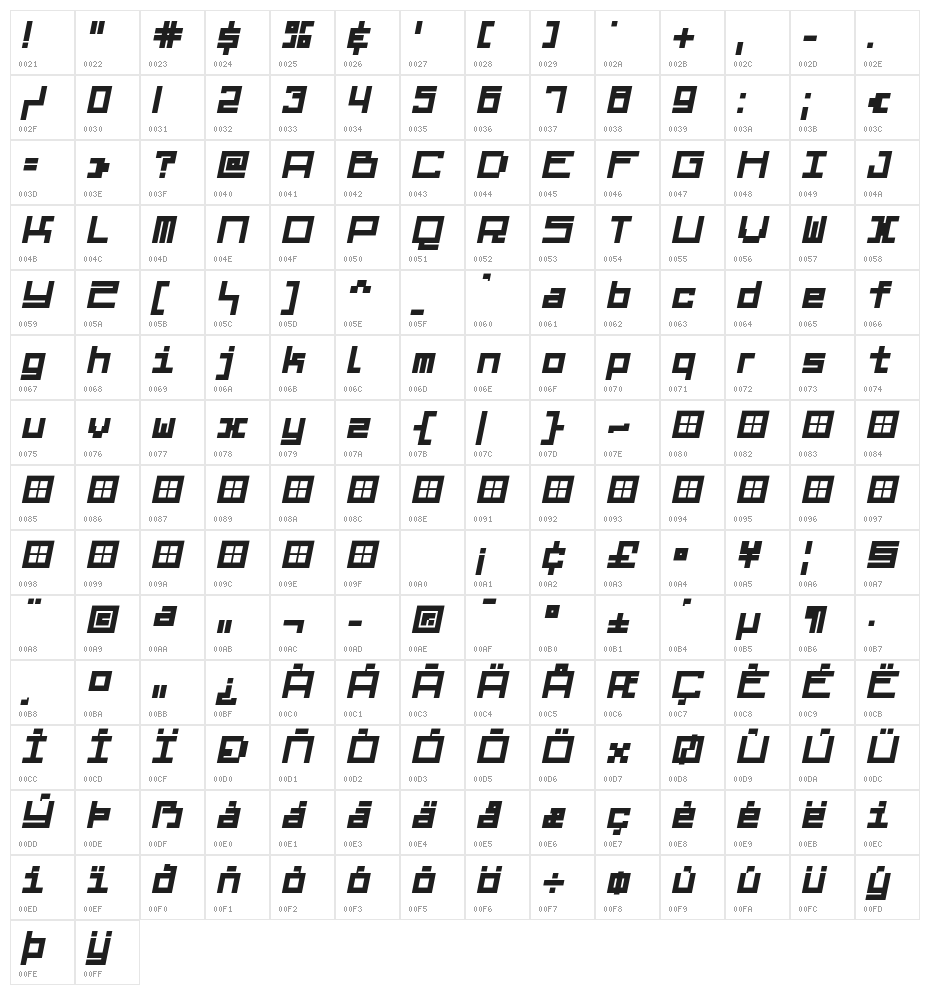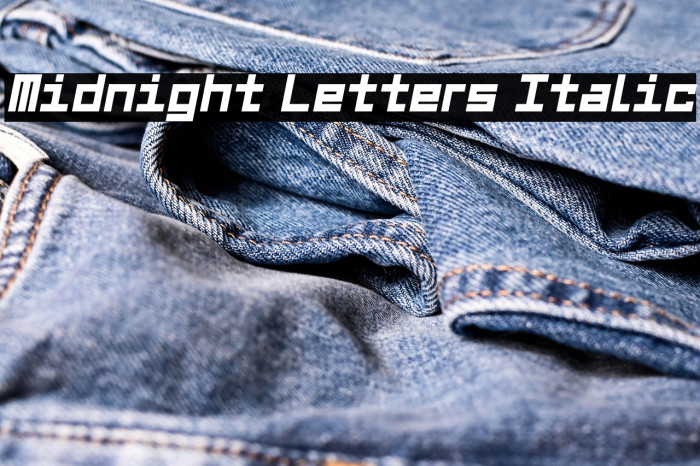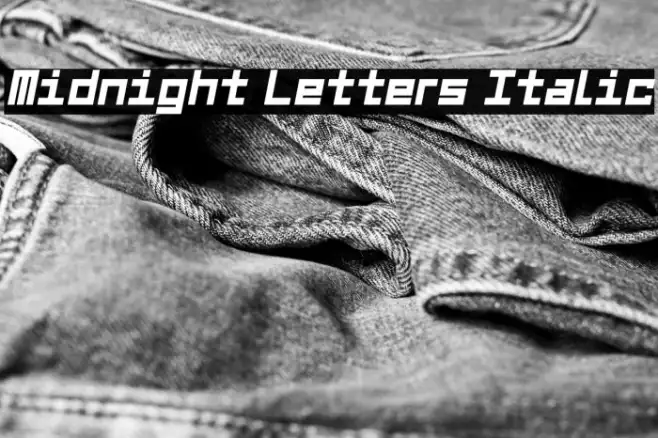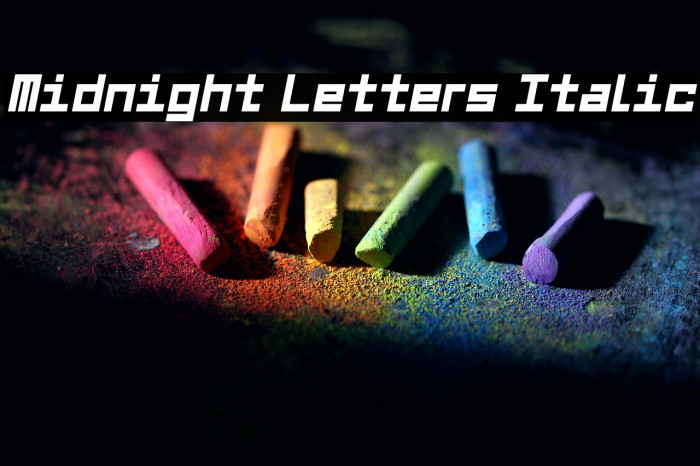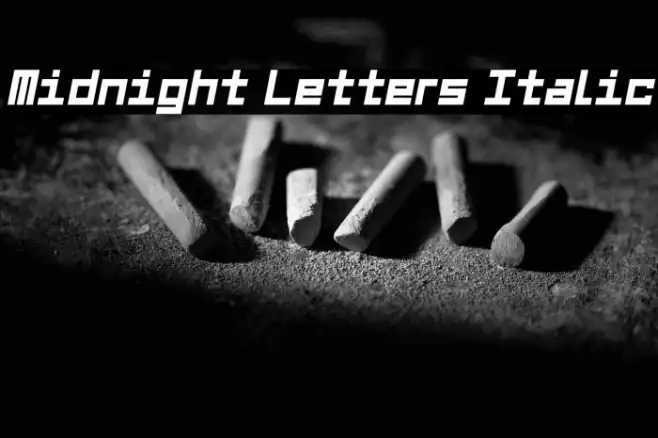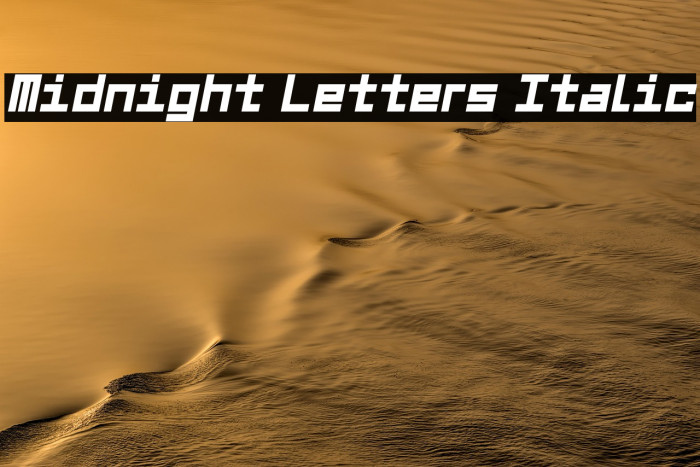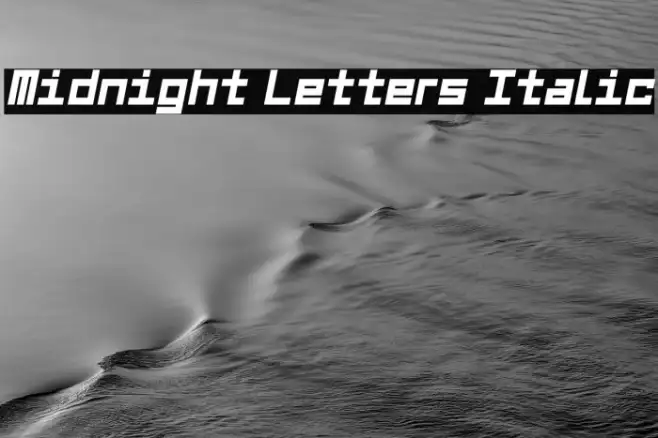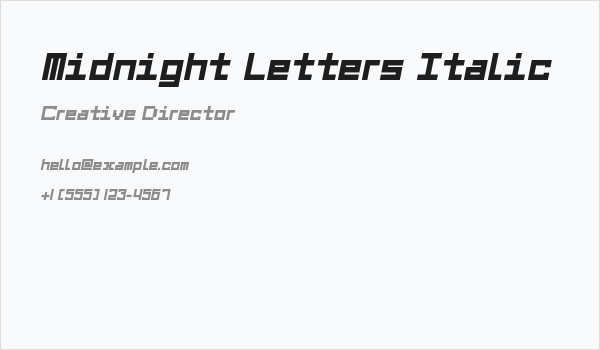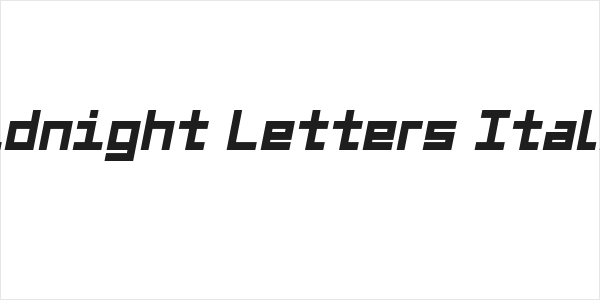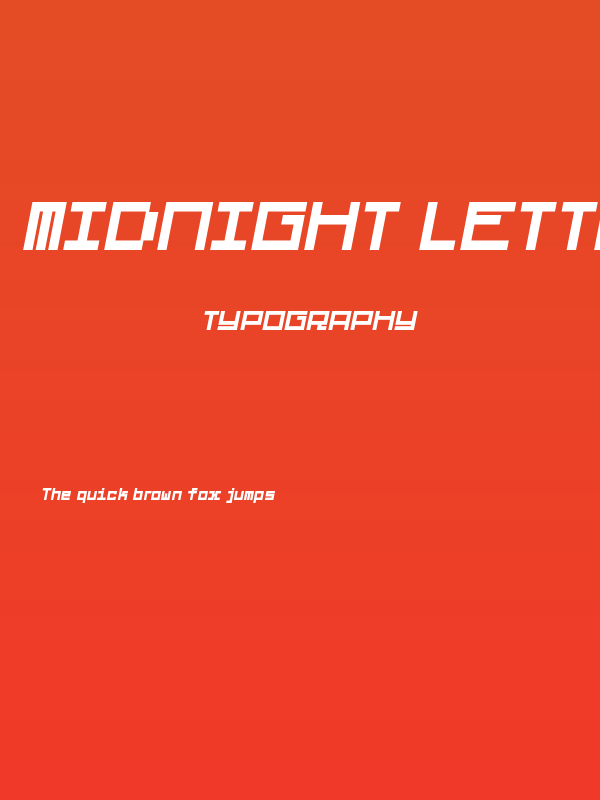
Midnight Letters Italic Font
Midnight Letters Italic Description
This font features a bold, angular design with a futuristic and dynamic appearance. The characters are italicized, giving them a sense of motion and speed. The strokes are thick and consistent, contributing to a strong visual impact. The geometric shapes and sharp edges create a modern and edgy look, suitable for projects that require a bold statement. The uppercase and lowercase letters maintain a uniform style, while the numbers and special characters complement the overall design. This font is ideal for attention-grabbing headlines, logos, and branding materials that aim to convey a sense of innovation and forward-thinking.
| Proposed Projects | Ideal for futuristic branding, tech-related logos, and dynamic headlines. |